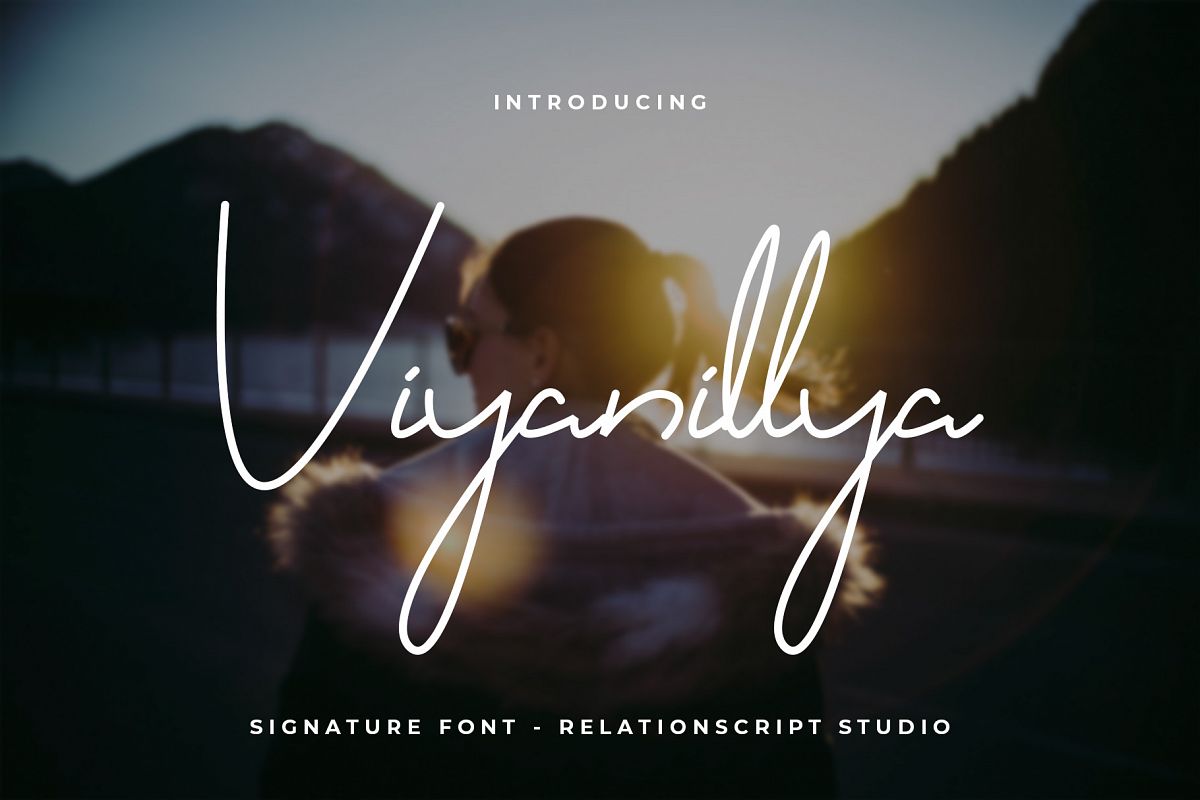
Viyanillya Signature Font
Viyanillya
It is perfectly used for various purposes such as editorial design, branding, art quote, book / cover title, poster, apparel design, product packaging, label, special events or anything that need hand-drawn taste.
2. The ton of glyphs (include Uppercase, Lowercase, Numerals & Punctuations)